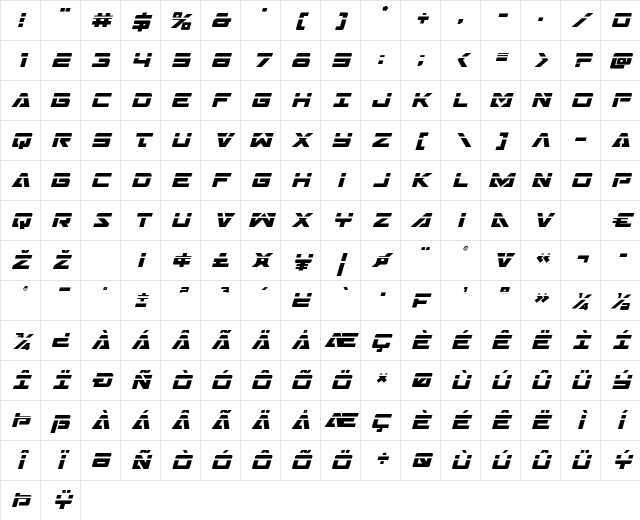
Complete Trans-America Laser Italic glyph index. Displaying only characters natively supported by Trans-America Laser Italic font.
Trans-America Laser is a composed and adaptable typeface that performs quietly and consistently across a wide range of design contexts. The slanted form adds forward momentum and visual energy.